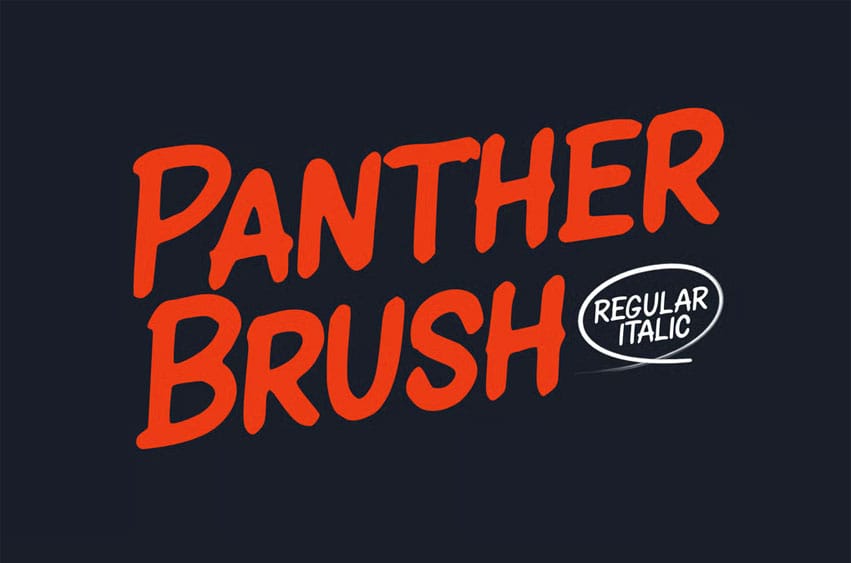
Panther Brush Font is a bold, casual handwritten font designed to bring energy and personality to your work. Its natural brush texture and smooth strokes make it perfect for designs that need an expressive feel.
The font comes in Regular and Italic styles, allowing you to create contrast and rhythm across different design contexts — from branding and packaging to posters, quotes, social media graphics, and more. With its friendly curves and bold presence, Panther Brush is ideal for designers who want a handwritten look that feels both organic and confident.
- Two styles: Regular & Italic
- Uppercase & lowercase
- Numbers & punctuation
- Smooth brush texture for a natural flow